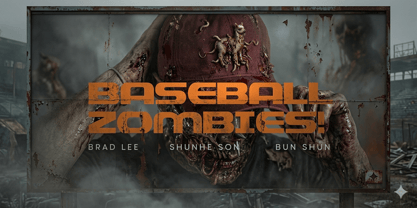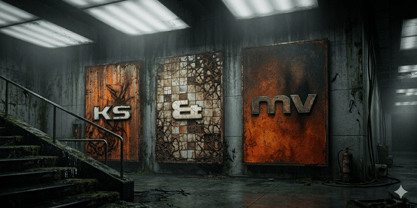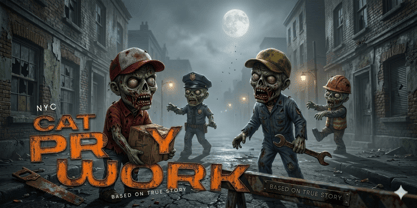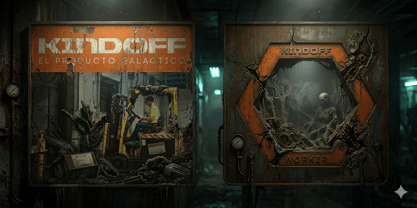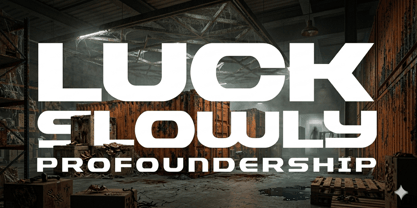
Ksmv O
by O Type Foundry
The Ksmv O Font Family was designed by Galang Persada and published by O Type Foundry. Ksmv O contains 1 styles. More about this family
Runnin O is a bold, modular sans serif designed for clarity and confidence. Its geometric construction and compact rhythm make it ideal for headlines, packaging, and digital branding that demand impact without sacrificing legibility. Each character feels engineered yet human—built for motion, commerce, and storytelling.
The typeface balances industrial precision with expressive warmth, inspired by urban signage and modern editorial grids. It performs beautifully in posters, sports branding, and cinematic titles, pairing well with minimalist grotesques or wide display fonts. With multiple weights and a full Latin character set, O Supply offers flexibility for both print and screen environments.
Created to embody the energy of contemporary design culture, it’s a font that moves fast, speaks loud, and stays memorable.
Designers: Galang Persada
Foundry: O Type Foundry